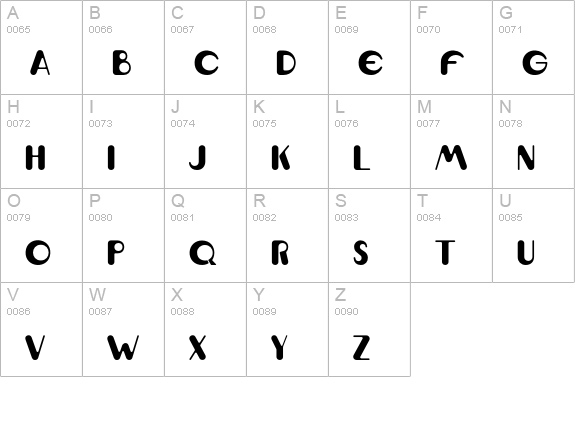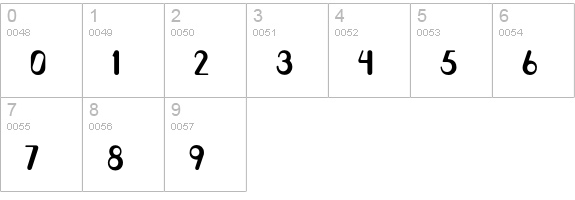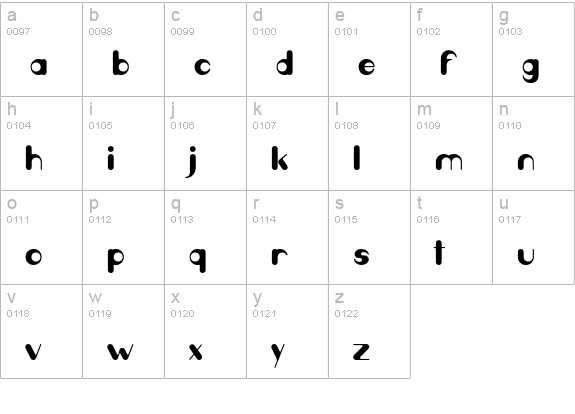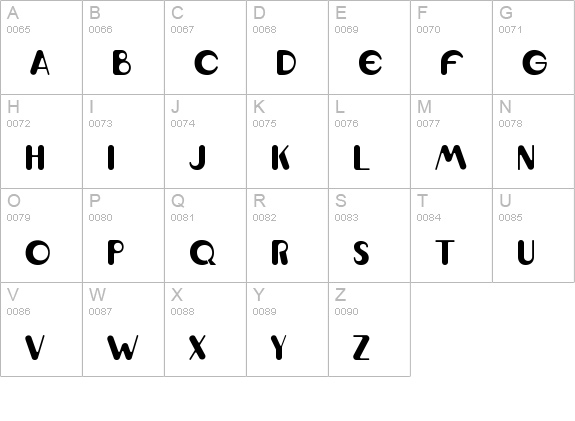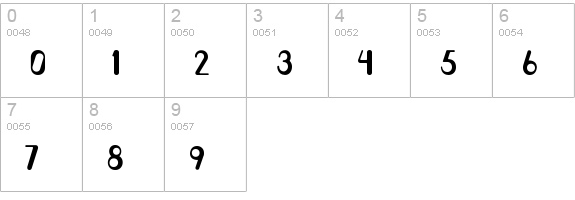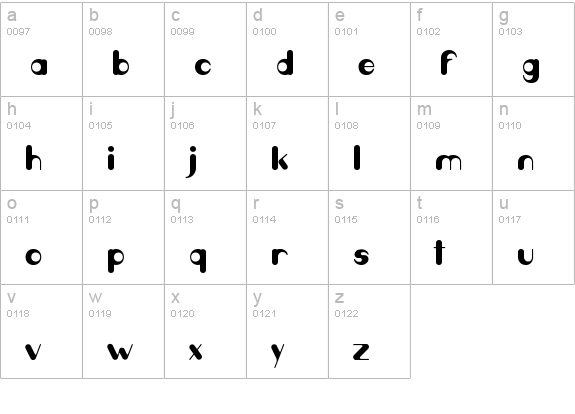
Magical Font Details
Introducing the breathtaking Magical font, a whimsical and enchanting typeface that will transport your designs into a world of magic and wonder. With its delicate curves and intricate details, this font exudes a sense of mystique and charm, making it perfect for a wide range of projects. Whether you're creating invitations for a fairytale-themed wedding, designing a book cover for a fantasy novel, or even crafting a logo for a children's brand, Magical font will bring that extra touch of magic to your work. Its versatile nature allows it to be used for both headlines and body text, ensuring that every word is imbued with a touch of enchantment. What sets Magical font apart is not just its captivating design, but also its generosity. This extraordinary font is available to download for free at FontsMarket.com. Yes, you read that right! You can now bring the enchantment of Magical font to your projects without spending a penny. Whether you're a professional designer or a hobbyist, this font is freely available to anyone who wants to add a touch of magic to their creations. Downloading and installing Magical font is a breeze, ensuring that you can start using it in no time. Compatible with both Mac and PC, this font is incredibly versatile and can be used across various design software and platforms. Its extensive character set includes uppercase and lowercase letters, numerals, punctuation marks, and even special characters, making it a complete package for all your creative needs. So why wait? Embrace the magic and download Magical font today from FontsMarket.com. Let your imagination soar as you create captivating designs that will transport viewers to a world where anything is possible. With Magical font, the possibilities are truly endless.